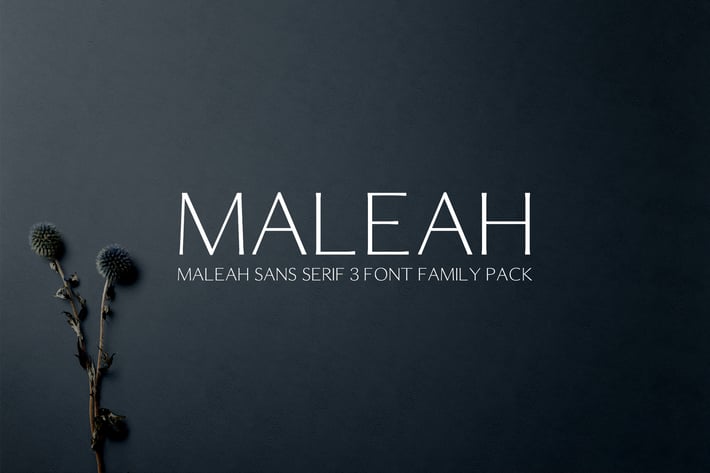
Maleah Sans Serif Font Family Pack
Maleah Sans Serif Font Family Pack features unique and modern serif look and feel. Perfect for gorgeous logos, titles, web layouts and branding. It looks gorgeous in all caps with a wide-set spacing if you want to try a classy look, or beautiful on its own in capital and lowercase letters for something completely timeless.
Font Weight: Regular, Thin, Oblique, and Bold
Maleah Font Features:
Uppercase Multilingual Letters
Lowercase Multilingual Letters
Numbers & Punctuation
Non English Characters ( Latin Extended A )